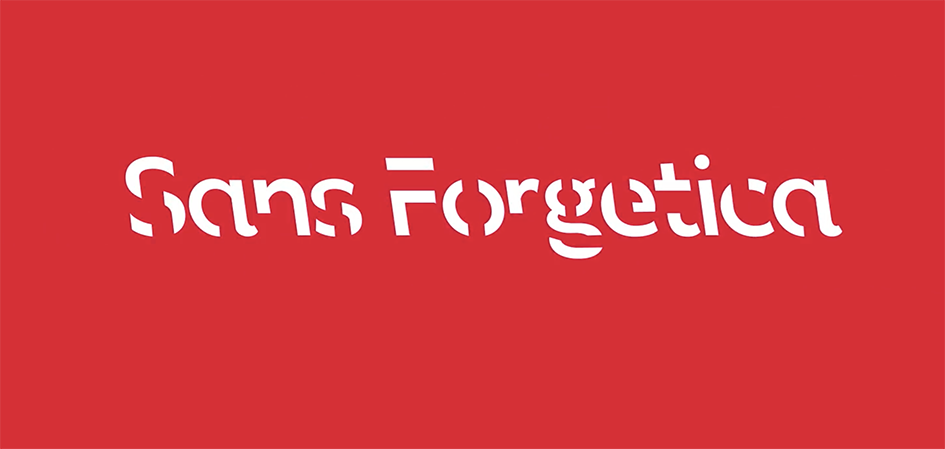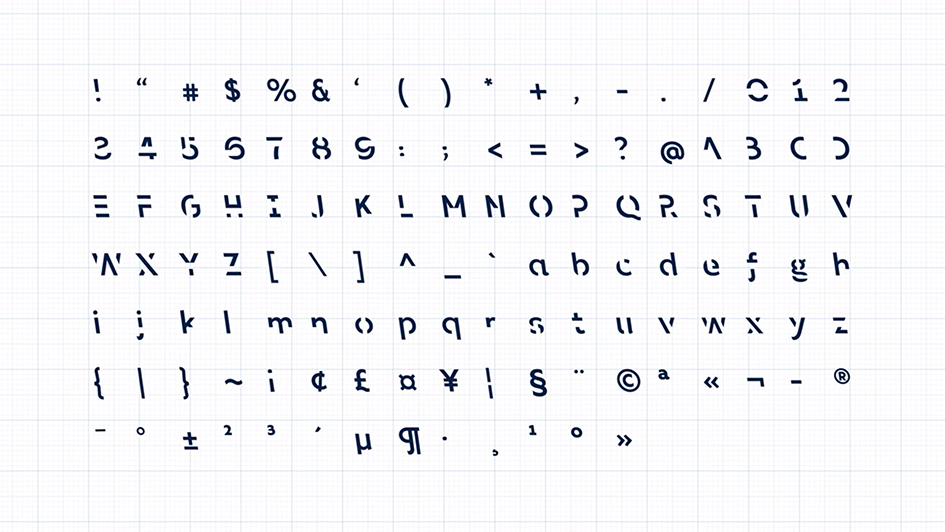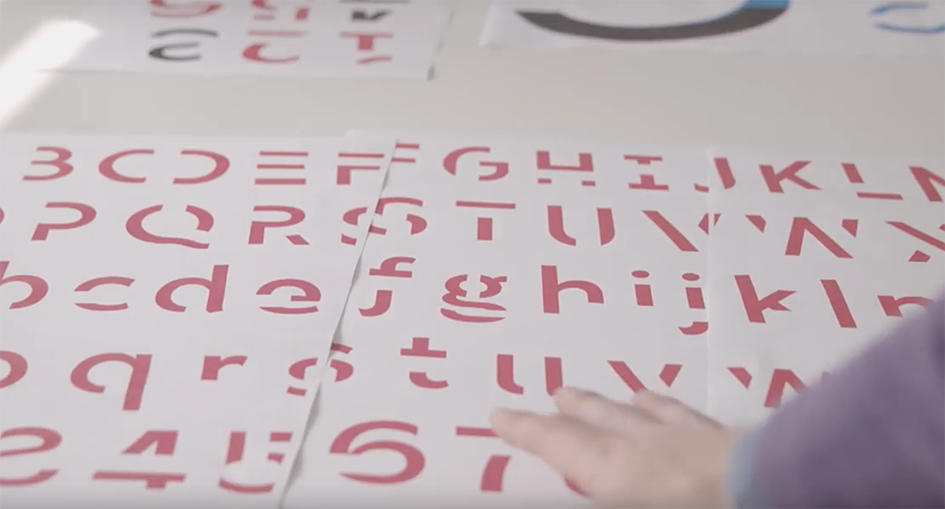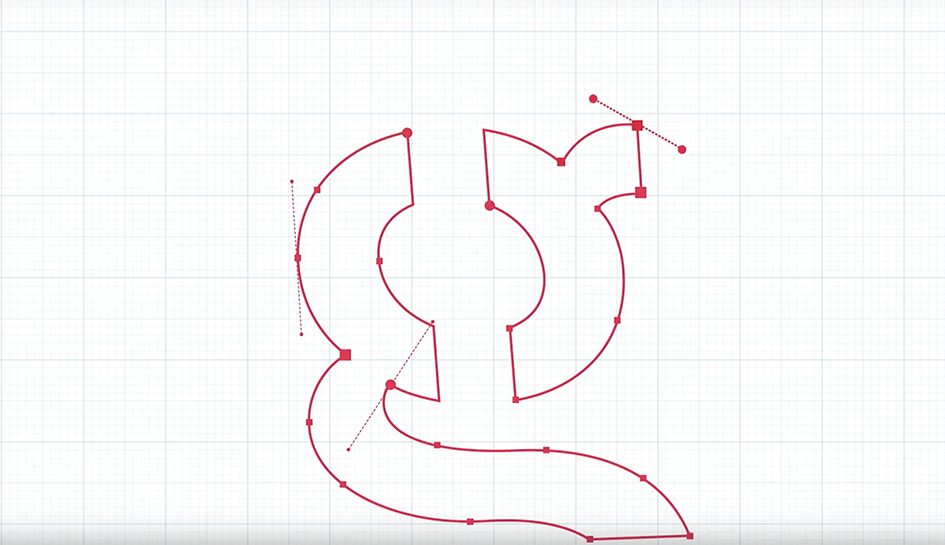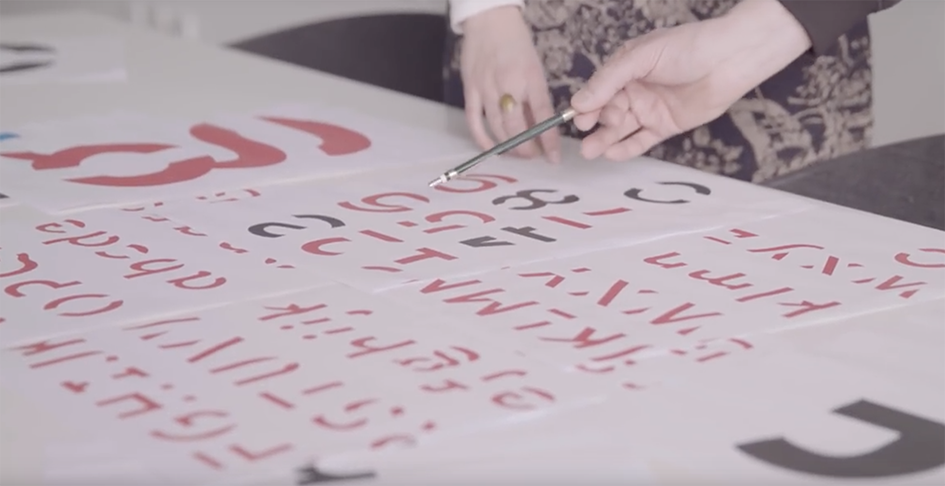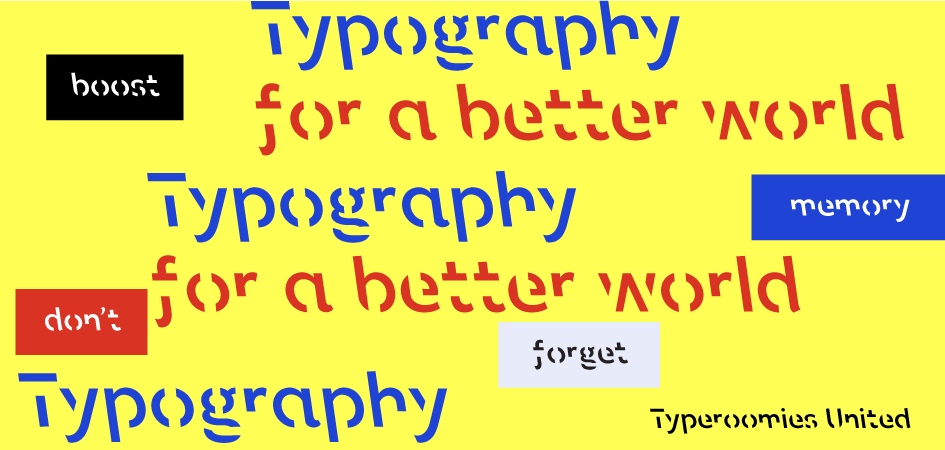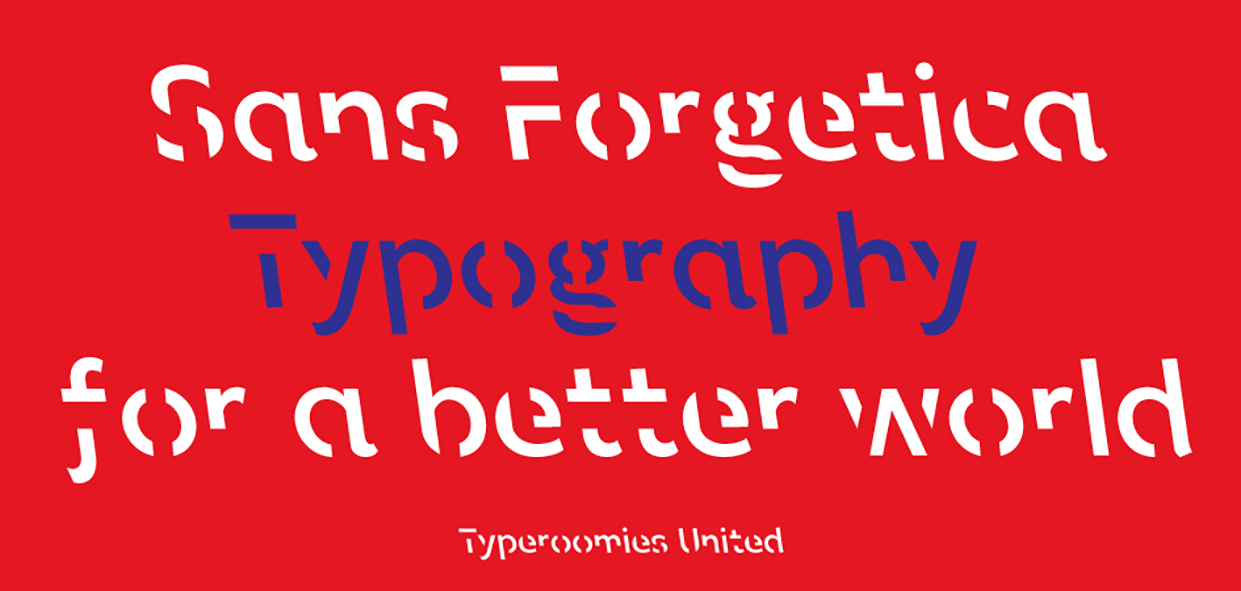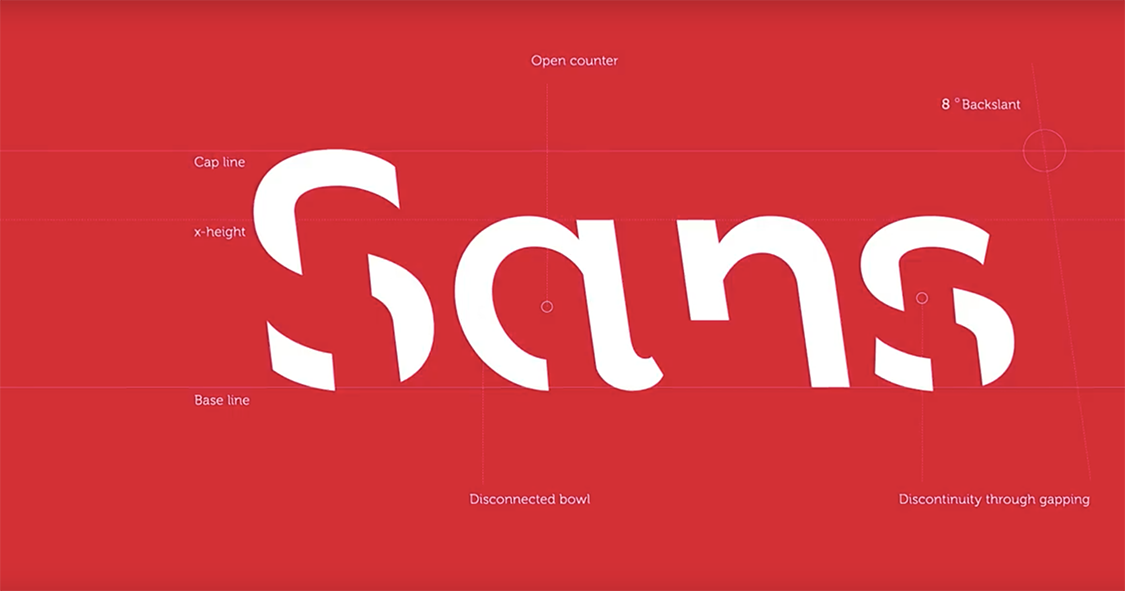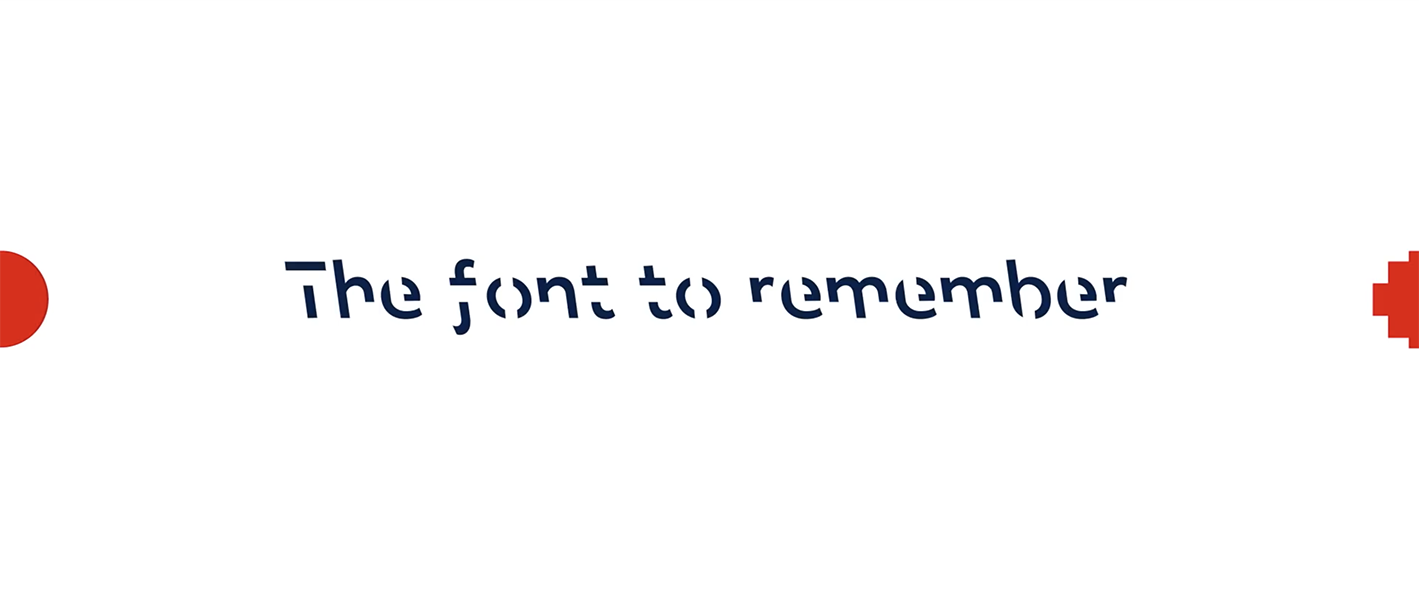
The science of type: Sans Forgetica is probably the world’s ultimate study hack
Sans Forgetica is believed to be the world’s first new typeface specifically designed to help students recall information. It was developed by combining psychological theory and design principles to improve retention of written information" notes RMIT lecturer and renowned typographer Stephen Banham who worked with RMIT’s Behavioural Business Lab to test and refine a number of typeface designs for this groundbreaking project to create a typeface with optimal desirable difficulty for memory recall.
"The downloadable font is scientifically designed to help you remember your study notes" notes the campaign of the font designed using the principles of cognitive psychology to the youth of Australia.
More difficult to read than most typefaces – and that’s by design "the 'desirable difficulty' you experience when reading information formatted in Sans Forgetica prompts your brain to engage in deeper processing".
"The font was developed using a learning principle called desirable difficulty, where an obstruction is added to the learning process that requires us to put in just enough effort, leading to better memory retention to promote deeper cognitive processing. Sans Forgetica has varying degrees of ‘distinctiveness’ built in that subvert many of the design principles normally associated with conventional typography. These degrees of distinctiveness cause readers to dwell longer on each word, giving the brain more time to engage in deeper cognitive processing, thus enhancing retention of that information" notes Banham on his blog.
"About 400 Australian university students participated in a laboratory and an online experiment conducted by RMIT’s Behavioural Business Lab where fonts exhibiting a spectrum of obstructions were tested to determine which font led to the best memory retention. Sans Forgetica broke just enough design principles without becoming too illegible. The research proved it aids memory retention".
"As Dr Janneke Blijlevens, Senior Lecturer Marketing (Experimental Methods & Design Thinking), and founding member of the RMIT Behavioural Business Lab remarked “Typical fonts are very familiar, so readers often glance over them and no memory trace is created. However, if a font is too different, the brain can’t process it and the information is not retained. Sans Forgetica lies at a sweet spot where just enough obstruction has been added to create that memory retention" he adds.